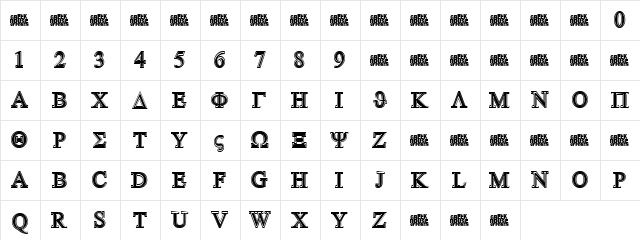
GreekHouseSymbolized Regular
| Designer | Phelan Riessen |
Design Context for GreekHouseSymbolized Typeface
GreekHouseSymbolized takes a measured approach to typography — its balanced proportions and neutral character make it a reliable workhorse for both digital and print work.